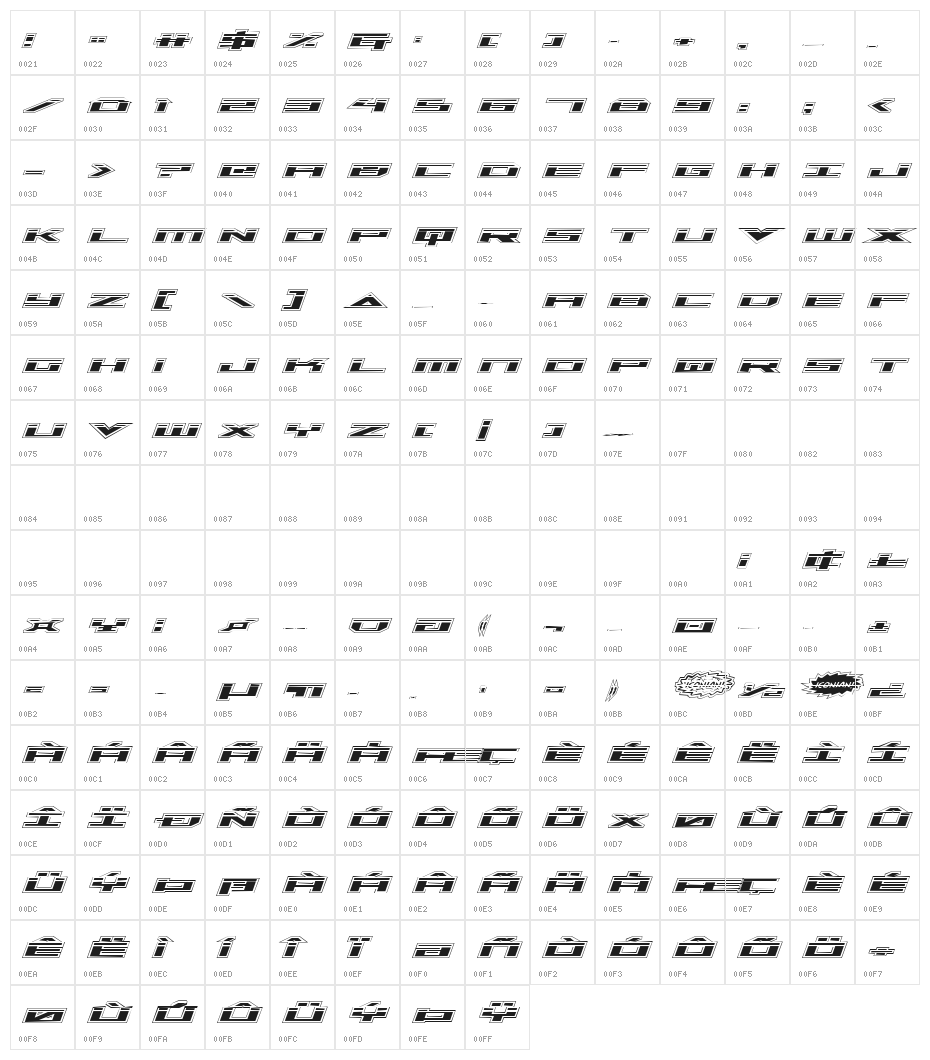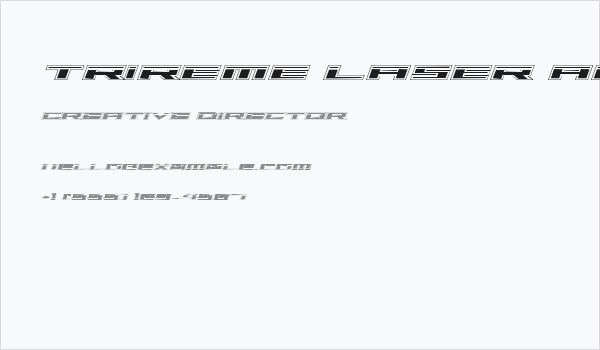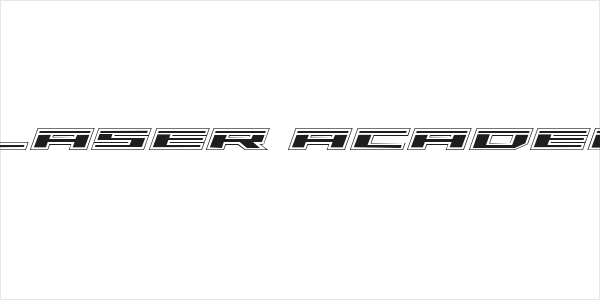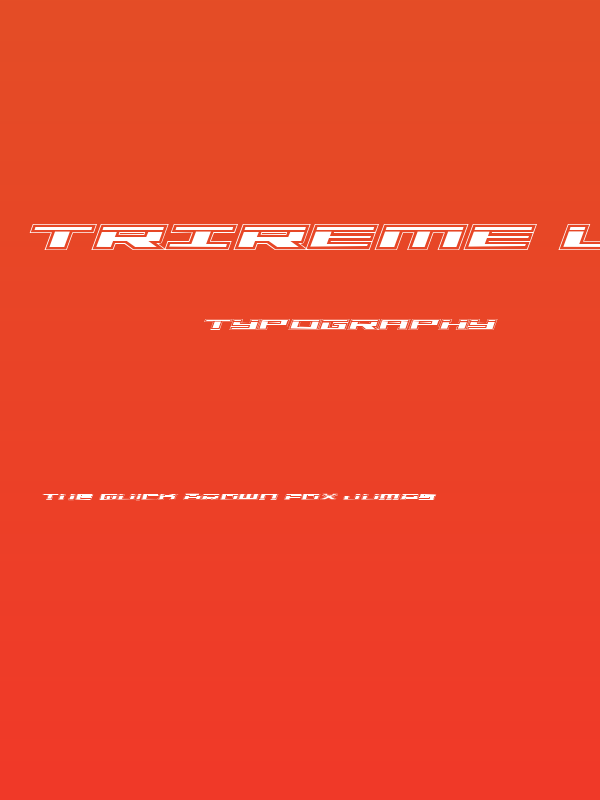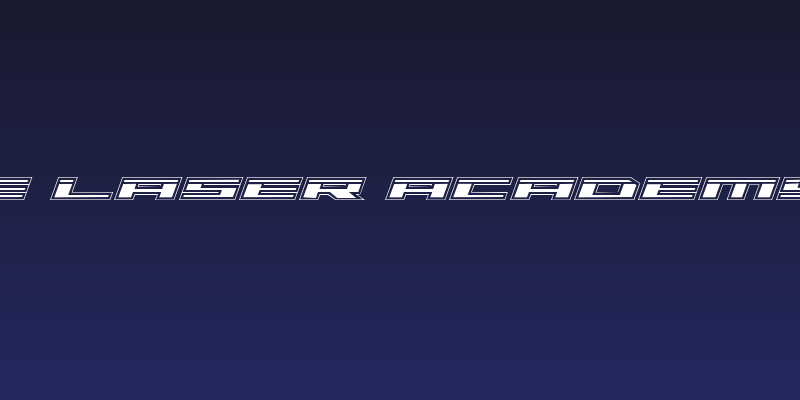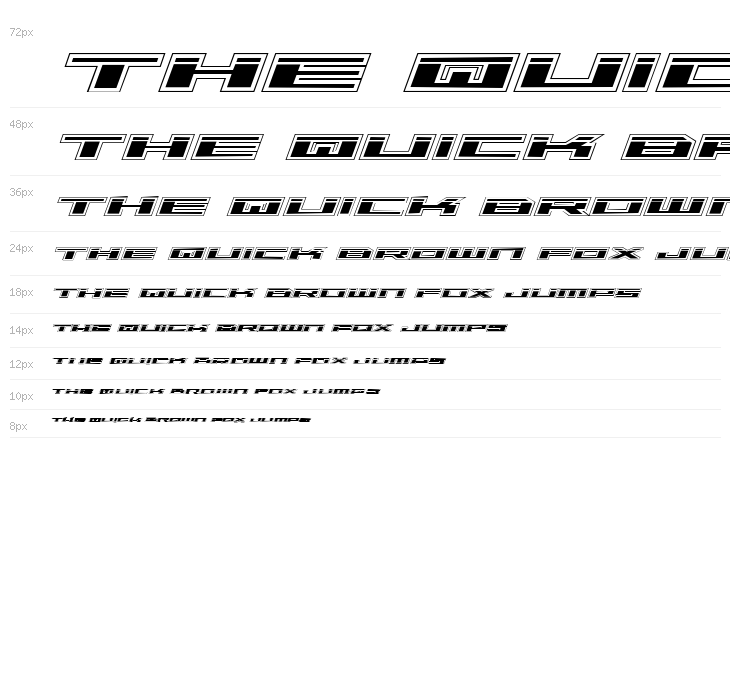
Trireme Laser Academy Italic Font
Trireme Laser Academy Italic Description
This font features a futuristic and angular design, characterized by sharp edges and a geometric structure. The letters are bold and italicized, giving a sense of motion and speed. The uppercase and lowercase letters maintain a consistent style, with the uppercase being slightly more pronounced. Numbers and special characters follow the same design principles, ensuring uniformity across all glyphs. The font's unique style makes it stand out, with a distinct sci-fi or tech-inspired aesthetic. Its bold presence is suitable for attention-grabbing designs.
| Proposed Projects | Ideal for sci-fi movie posters, video game titles, tech branding, and futuristic-themed designs. |